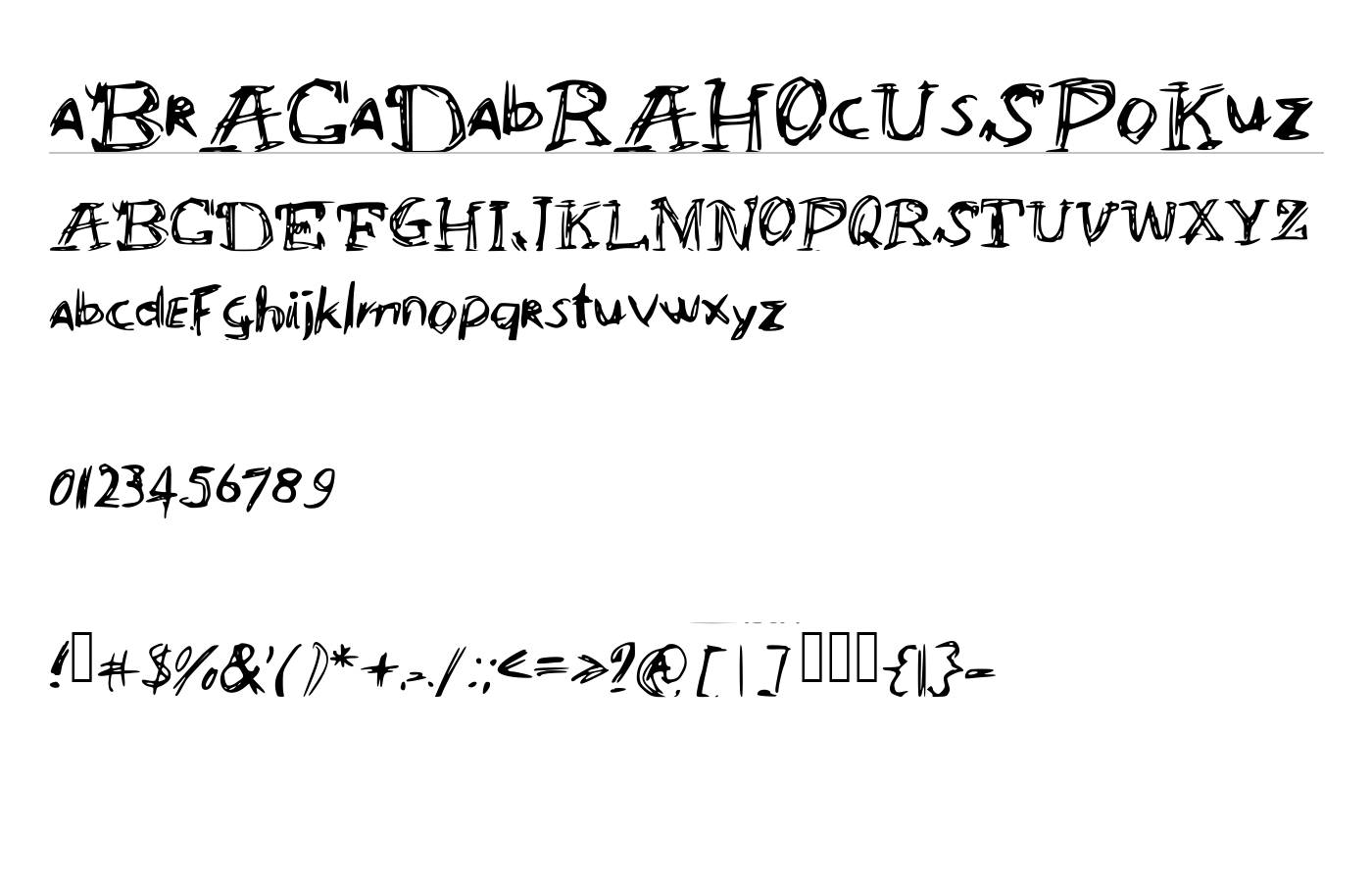
The aBrACaDabRAHOcUsSPoKuz font is a playful, hand-drawn serif style with irregular, jagged strokes that give it an energetic and whimsical character. Its uneven letterforms and quirky details create a dynamic, slightly chaotic feel, making it ideal for creative projects, Halloween themes, or anything needing a magical, spooky touch. This font works best in headlines, posters, or logos where a unique and eye-catching style is desired.
aBrACaDabRAHOcUsSPoKuz Font
About aBrACaDabRAHOcUsSPoKuz Font